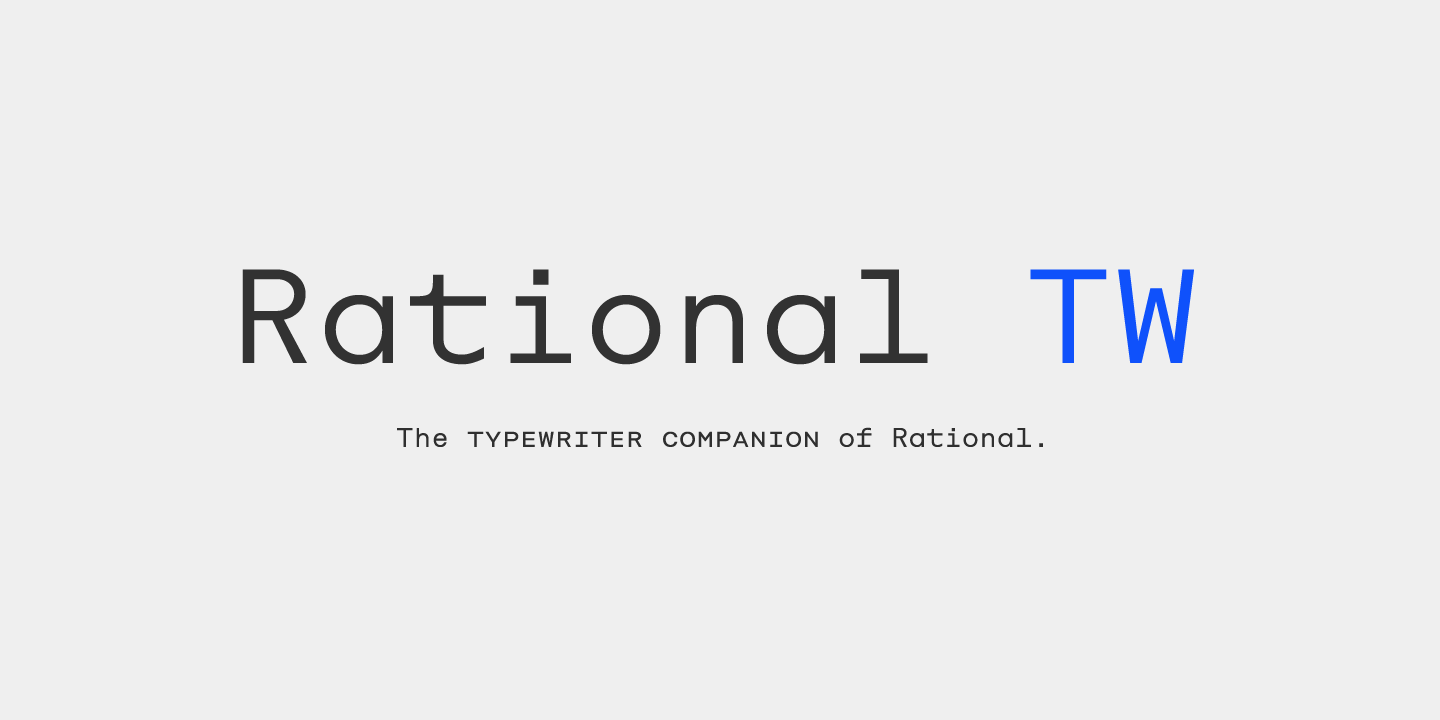
Rational TW Font Family
Introducing Rational TW Font Family. Rational TW designed by Rene Bieder. Rational TW is the typewriter addition to the Rational family. It is a monospaced font building on the same principles as its proportional, neogrotesque brother, such as maximum legibility and flexibility while combining Swiss and American gothic elements with a modern aesthetic.